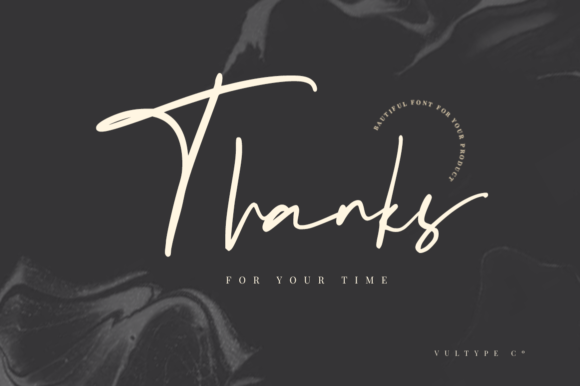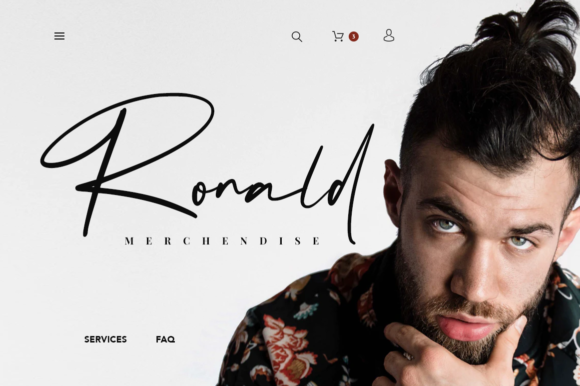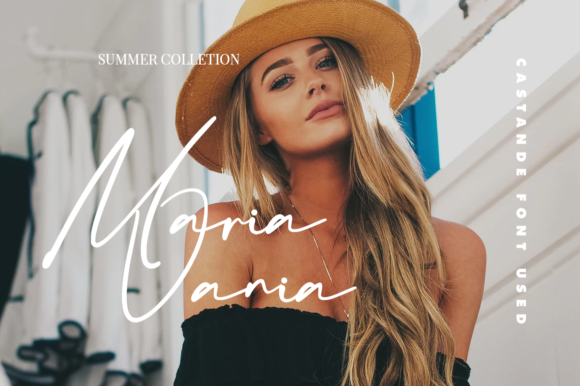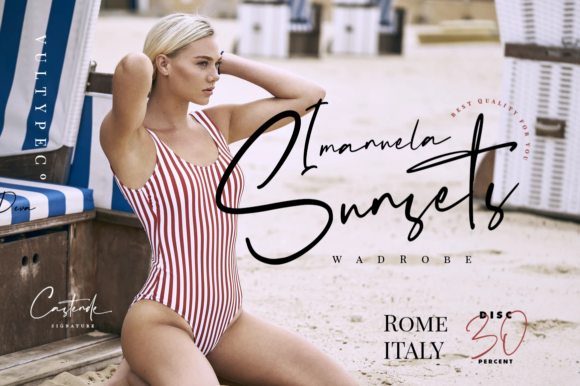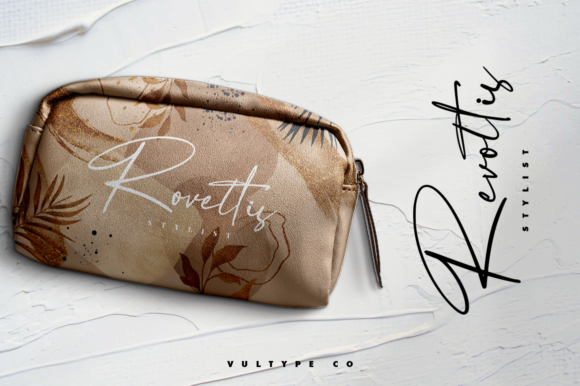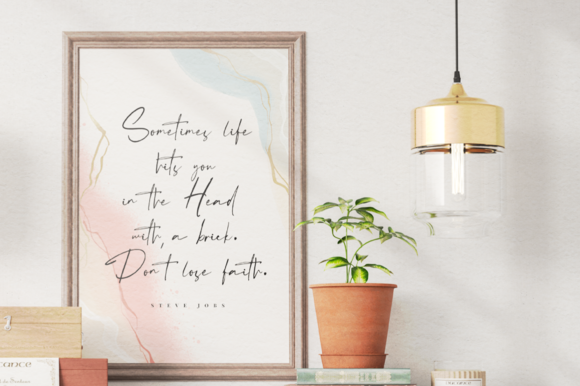
Introducing Castende Font: Elevate Your Designs with Elegance and Class
Are you tired of using the same old fonts in your designs? Do you want to add a touch of elegance and sophistication to your creations? Look no further than Castende Font, a lovely and delicate script font that is sure to take your designs to the next level. In this article, we’ll explore the features and benefits of Castende Font, and why it’s a must-have for designers and crafters.
What is Castende Font?
Castende Font is a beautiful script font that exudes elegance and class. It was particularly crafted for those who need a beautiful and refreshing look to their designs. Whether you’re working on a branding project, a wedding invitation, or a packaging design, Castende Font is the perfect choice. Its delicate and refined strokes make it perfect for designs that require a touch of sophistication.
What Makes Castende Font Special?
Castende Font is not just another script font. It has several features that make it stand out from the rest. Here are a few:
- PUA Encoding: Castende Font is PUA (Private Use Area) encoded, which means you can access all glyphs and swashes with ease. This makes it easy to use and customize, even for those who are not font experts.
- Beautiful Swashes: Castende Font comes with beautiful swashes that can be used to add a touch of elegance to your designs. The swashes can be used to create beautiful headings, titles, and even signatures.
- Delicate Strokes: The font has delicate and refined strokes that make it perfect for designs that require a touch of sophistication. The strokes are smooth and flowing, making it easy to read and understand.
Benefits of Using Castende Font
So, why should you use Castende Font in your designs? Here are a few benefits:
- Elegance and Sophistication: Castende Font adds a touch of elegance and sophistication to your designs. It’s perfect for designs that require a refined and classy look.
- Versatility: Castende Font is versatile and can be used in a variety of designs, from branding and advertising to packaging and wedding invitations.
- Easy to Use: Castende Font is easy to use, even for those who are not font experts. The PUA encoding makes it easy to access all glyphs and swashes.
Who Can Use Castende Font?
Castende Font is perfect for designers, crafters, and anyone who needs a beautiful and elegant font for their designs. Here are a few examples:
- Graphic Designers: Graphic designers can use Castende Font in a variety of designs, from branding and advertising to packaging and web design.
- Crafters: Crafters can use Castende Font in their craft projects, such as card making, scrapbooking, and DIY projects.
- Wedding Planners: Wedding planners can use Castende Font in wedding invitations, wedding stationery, and other wedding-related designs.
In conclusion, Castende Font is a beautiful and elegant script font that is perfect for designers and crafters who need a touch of sophistication in their designs. Its delicate strokes, beautiful swashes, and PUA encoding make it easy to use and customize. Whether you’re working on a branding project, a wedding invitation, or a packaging design, Castende Font is the perfect choice. So, why wait? Get Castende Font today and elevate your designs to the next level!